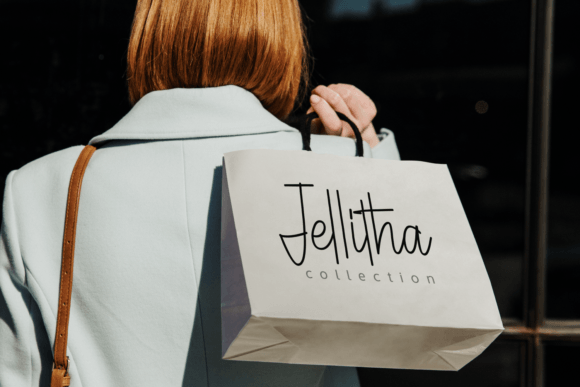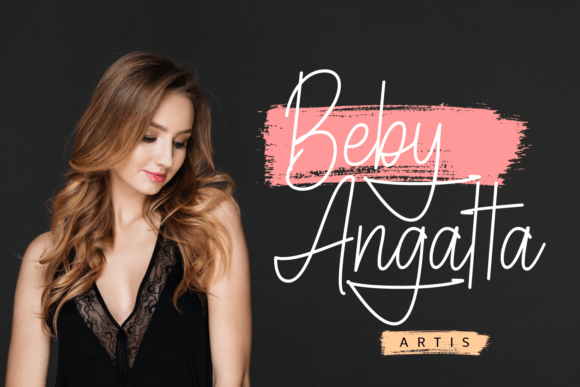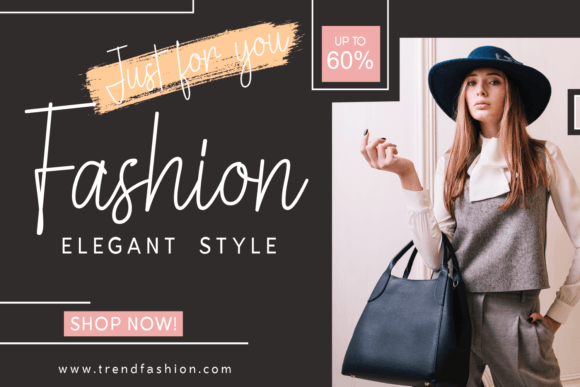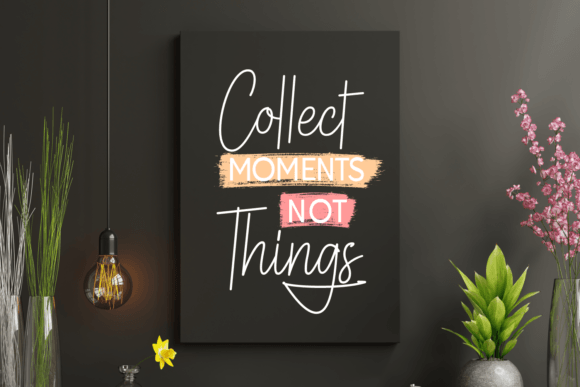
Unleash Your Creative Expression with the Askiya Font
There’s something magical about the moment when a design idea comes to life, and the right font is the catalyst that takes it to the next level. You’re brainstorming a new project, and suddenly, you envision the perfect words, flowing effortlessly across the page in elegant, handwritten script. This is where the Askiya Font comes in – a modern calligraphy font that effortlessly blends elegance and contemporary style.
This versatile typeface is designed to add a touch of sophistication to any project, from branding and wedding invitations to social media graphics. With its PUA encoding, you can easily access all the amazing glyphs and ligatures, giving you the freedom to create beautiful, one-of-a-kind designs. Whether you’re a seasoned designer or just starting out, the Askiya Font is a valuable addition to your toolkit, waiting to elevate your creative expression and leave a lasting impression.
- Font Family: Askiya Font comes in two styles – Regular and Bold.
- Character Set: Supports a wide range of languages, including Latin, Cyrillic, and Arabic.
- Unique Characteristics: The Askiya Font features a unique blend of traditional and modern design elements, with intricate details and ornate flourishes.
Askiya Font Review
As a designer, I was excited to dive into the Askiya Font, and overall, I have mixed feelings about this font family.
- Askiya Font has a beautiful, unique aesthetic that can add a touch of elegance to any design project.
- The font family is quite extensive, with many weights and styles to choose from, making it a great option for creating complex typographic compositions.
- Askiya Font performs well in both digital and print formats, ensuring consistency across different mediums.
- The font family can be a bit overwhelming, with so many options available. This may lead to decision fatigue and make it difficult to choose the right font for a specific project.
- Askiya Font may not be the best choice for body text, as it can be quite decorative and may be difficult to read in large quantities.
- The font’s unique aesthetic may not be suitable for all design projects, particularly those with a more minimalist or modern aesthetic.
Overall, Askiya Font is a beautiful and versatile font family that can add a touch of sophistication to any design project. While it may have some limitations, I believe it is a great option for designers looking to create unique and eye-catching typographic compositions.
Askiya Font is perfect for:
- Creating a unique and modern brand identity.
- Designing invitations, posters